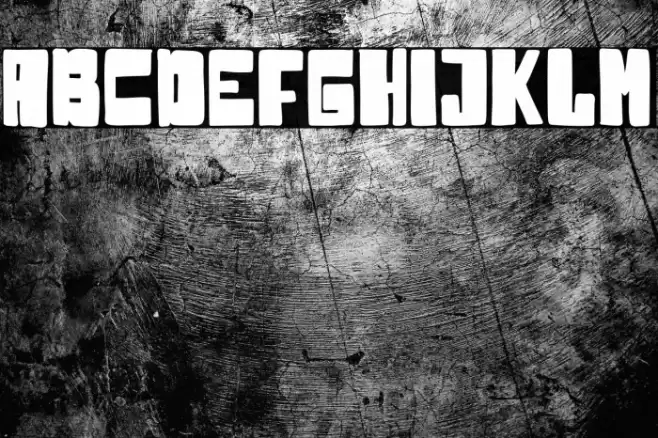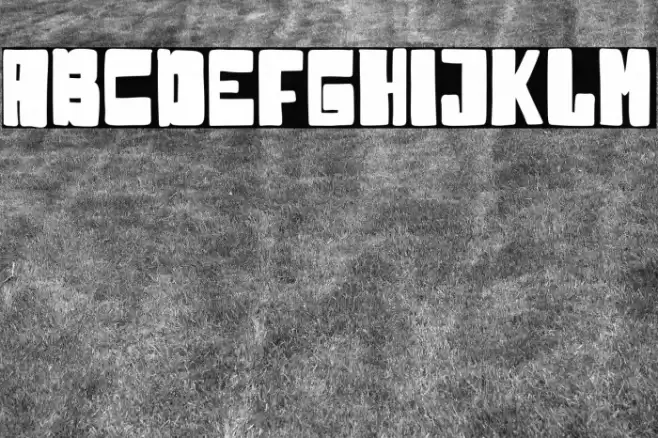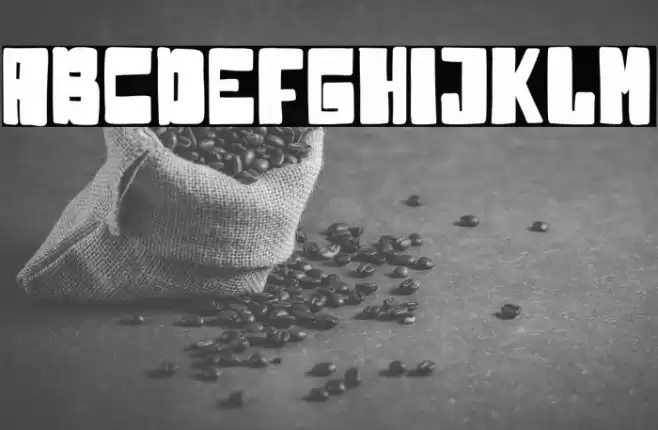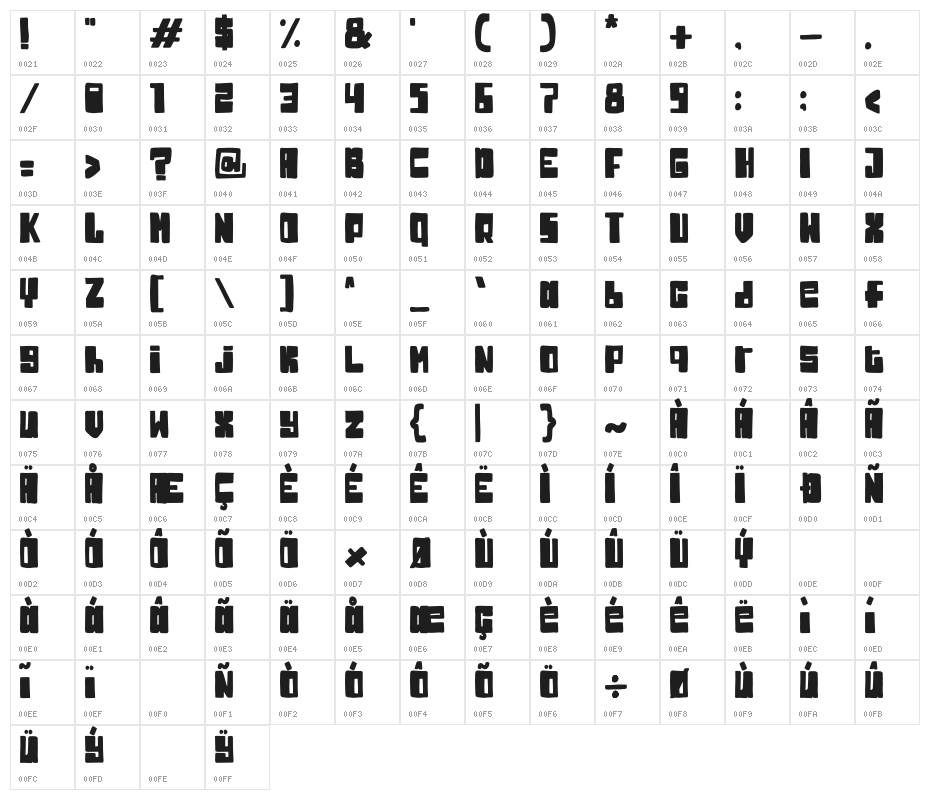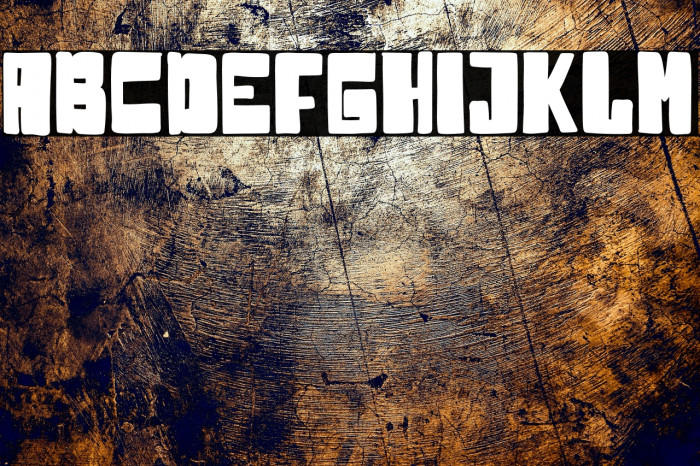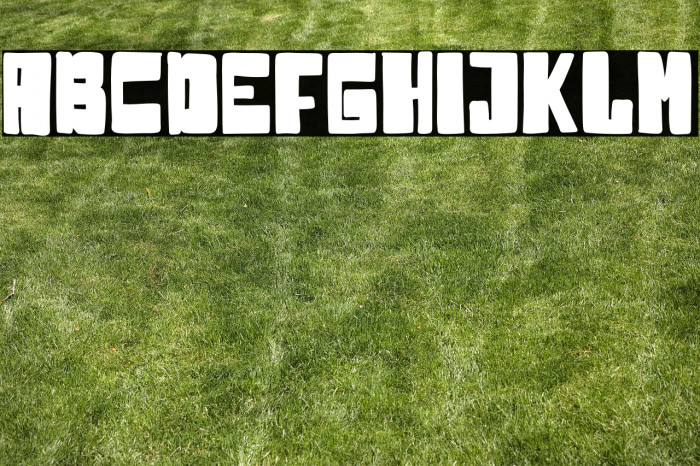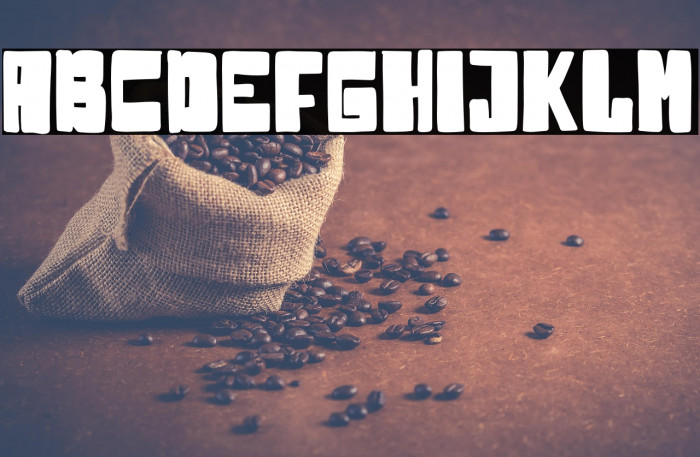
Jakusty Font
Jakusty Description
This font features bold, blocky characters with a playful and chunky appearance. The letters are uniformly thick, creating a strong visual impact. The rounded edges and consistent stroke width give it a friendly and approachable feel. The uppercase and lowercase letters maintain a similar style, ensuring coherence across different text cases. Numbers and special characters are designed to match the boldness and style of the alphabet, making it suitable for various applications. The overall design is modern and eye-catching, perfect for grabbing attention.
Bold, chunky font with rounded edges and a playful style from Uncategorized fonts.
- Font: Jakusty
- Proposed Projects: Ideal for posters, headlines, children's books, and branding projects that require a bold and friendly typeface.